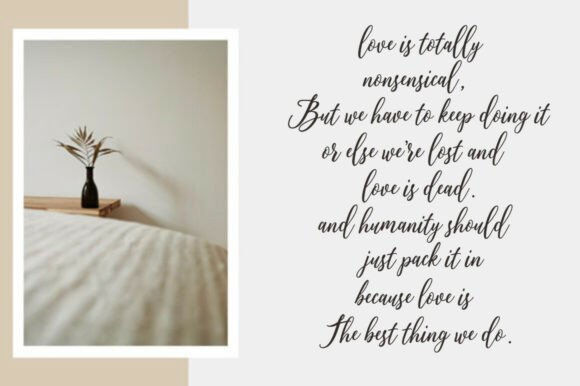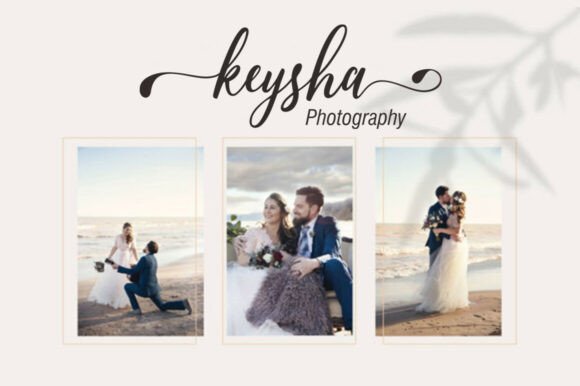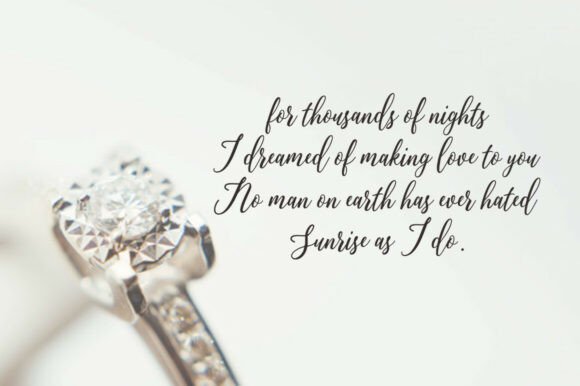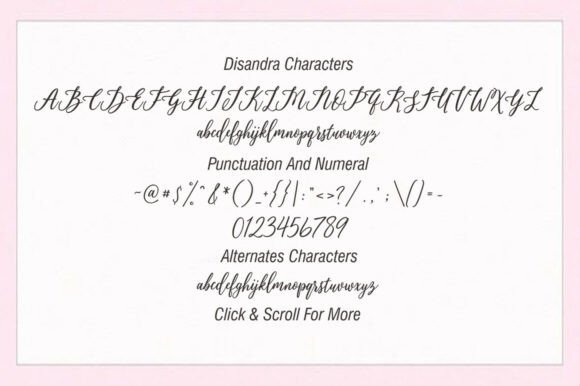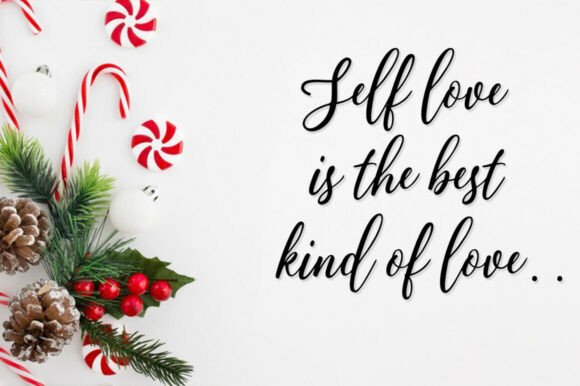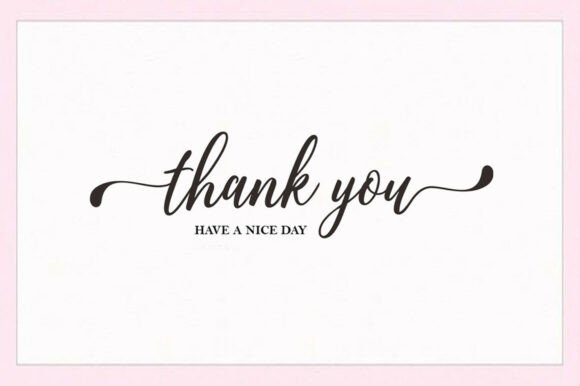
The Elusive Perfect Font: My Encounter with Disandra
I still remember the countless hours I spent searching for the perfect font for a wedding invitation project. My client wanted something elegant, sophisticated, and eye-catching. I scrolled through font after font, but nothing seemed quite right. That was until I stumbled upon Disandra, a stylistic script font that instantly caught my attention. Its flowing curves, intricate details, and charming swashes made it the perfect fit for my project. In this article, I’ll share my experience with Disandra, its features, and how to make the most of this beautiful font.
An Honest Review of Disandra
What I Love About Disandra ✨
- 💫 Sophisticated and elegant design, perfect for high-end projects
- ✅ Flowing, graceful curves and intricate details that exude refinement
- 🎨 Stylish swashes and smooth ligatures for added visual interest
- 🖌️ Versatile and suitable for various applications, from wedding invitations to luxury branding
While Disandra is an exceptional font, there are a few things to keep in mind:
- 🤔 Some users may find the font a bit challenging to read at smaller sizes due to its intricate details.
- ⚠️ As with any script font, it’s essential to use Disandra in a way that complements your design, rather than overpowering it.
A Practical Guide to Using Disandra
The Story Behind Disandra
Disandra was designed by a team of skilled typographers who aimed to create a font that embodies the essence of hand-crafted calligraphy. Inspired by traditional calligraphy and modern script fonts, Disandra combines elegance and sophistication with a touch of whimsy. The result is a font that is both refined and eye-catching, perfect for designers looking to add a touch of luxury to their work.
Q: What is the best way to use Disandra in a design?
A: The best way to use Disandra is to pair it with a clean and simple background, allowing the font’s intricate details to take center stage.
Q: How do I access the OpenType features in Disandra?
A: To access OpenType features, you’ll need to use a design platform that supports OpenType, such as Adobe Photoshop or Illustrator. From there, you can explore the various features, such as swashes, ligatures, and stylistic alternates.
Q: Is Disandra suitable for body text?
A: While Disandra is an elegant font, it’s best suited for headlines and titles rather than body text. Its intricate details can make it challenging to read at smaller sizes.